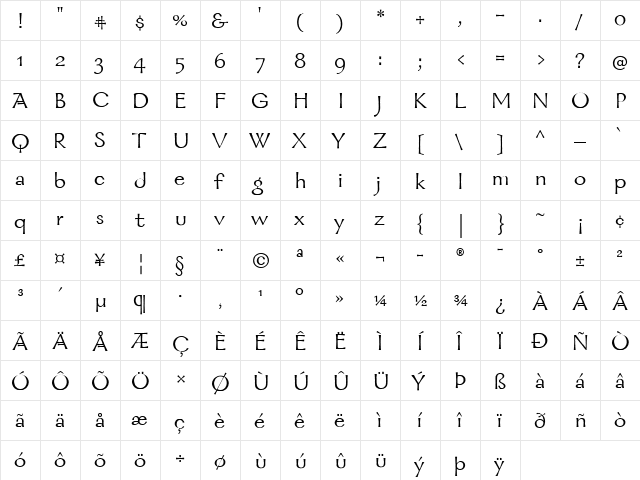
Galahad Regular
Design Context for Galahad Typeface
Galahad takes a measured approach to typography — its balanced proportions and neutral character make it a reliable workhorse for both digital and print work.
Pro Tip: Use Galahad in both headline and body roles to test its range before committing to a single application.